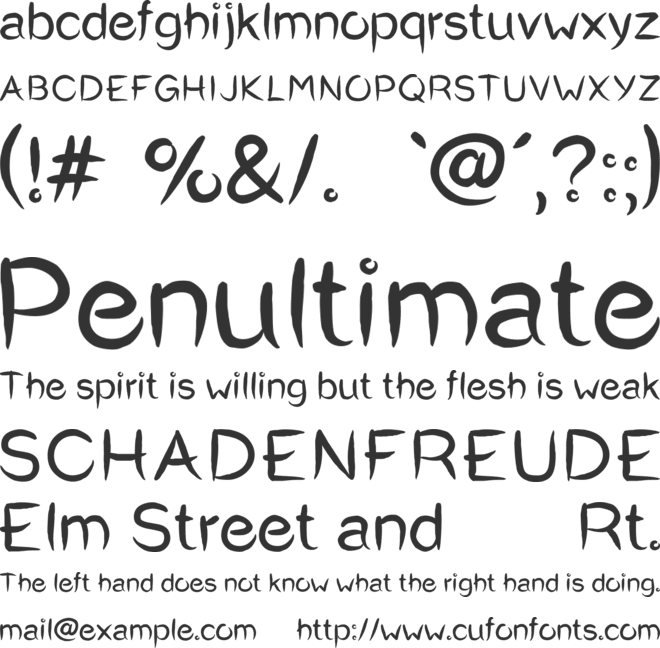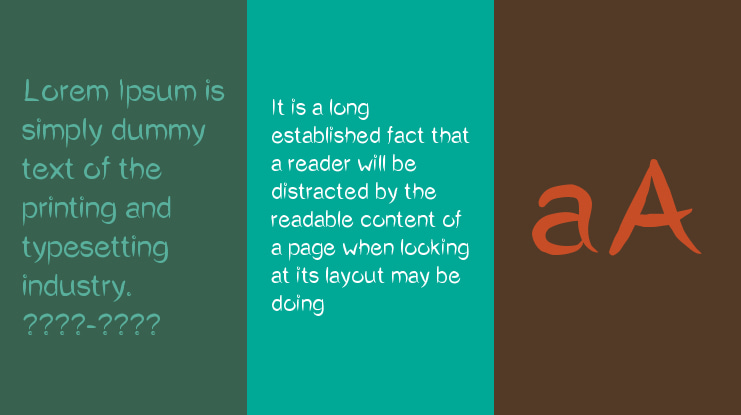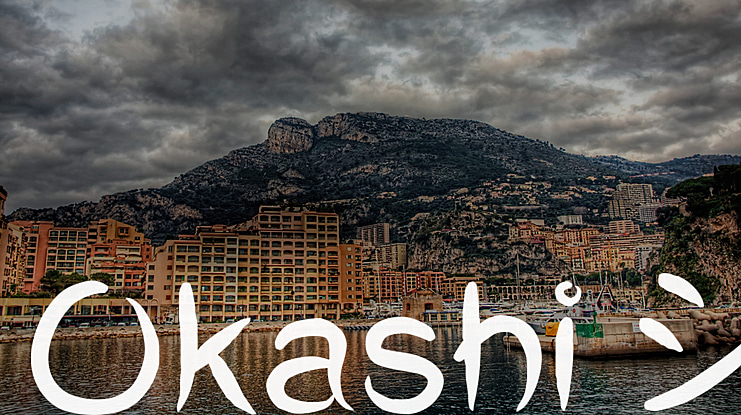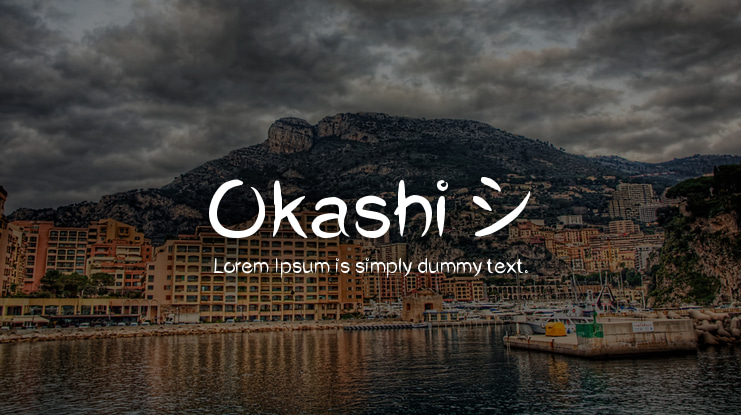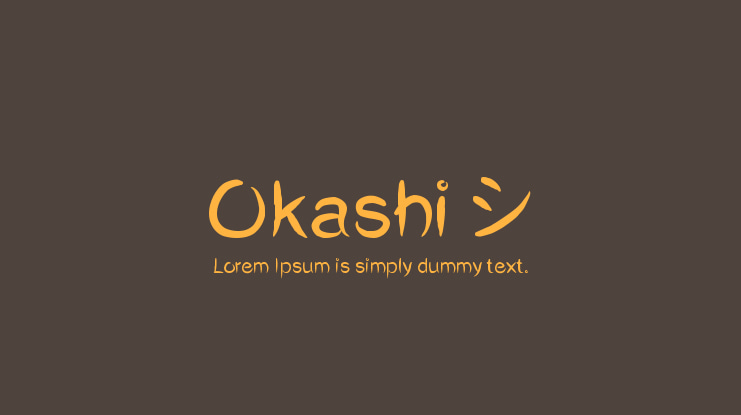
Okashi^ Font
Meet Okashi! Our first font that supports Japanese language! With over 680 glyphs in total you will get complete katakana and hiragana support plus 82 kanjis. It also features numbers, symbols and language support for many other countries.
Okashi is handcrafted by our new team member, who has a great passion for the Japanese culture. It means "sweets", which represents another of her passions.